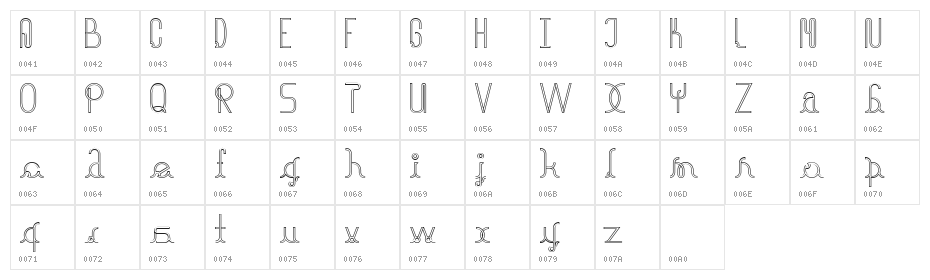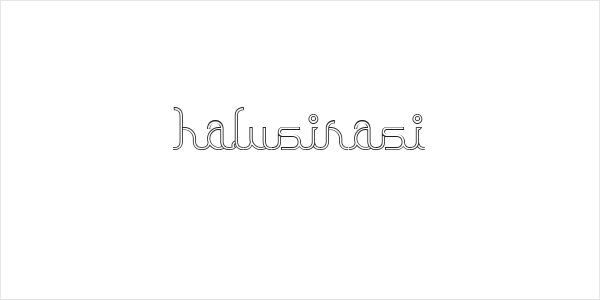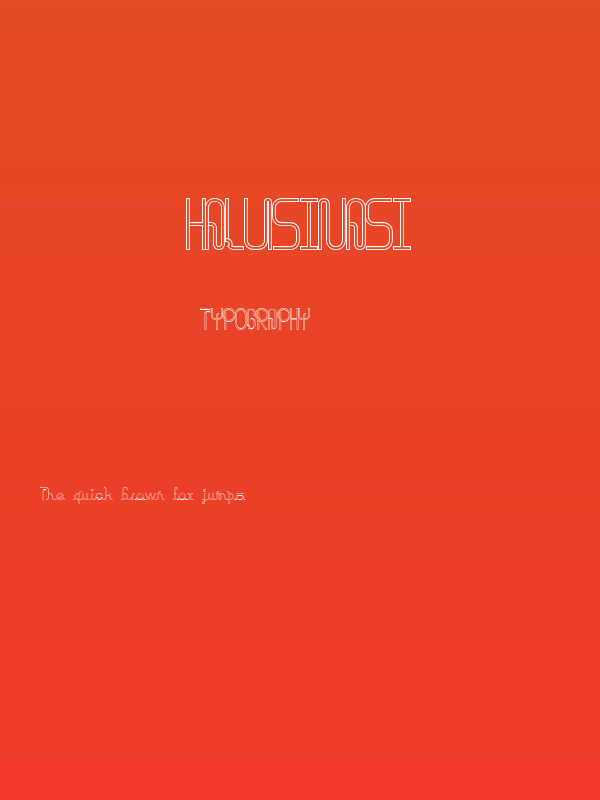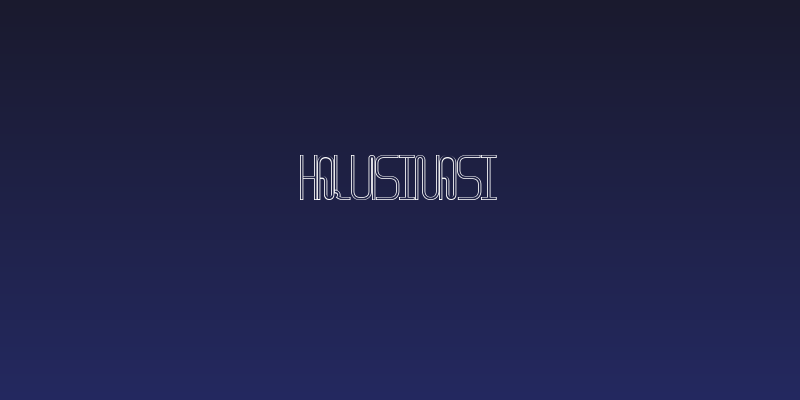
halusinasi Font
halusinasi Description
This font features a unique, interconnected design where each character is formed with continuous lines, creating a sense of flow and movement. The uppercase letters are bold and structured, while the lowercase letters maintain a consistent line weight, offering a harmonious balance. The font's geometric nature is evident in its clean lines and rounded edges, giving it a modern and futuristic appeal. The characters are evenly spaced, ensuring readability while maintaining an artistic flair. This font is ideal for creative projects that require a distinctive and eye-catching typeface.